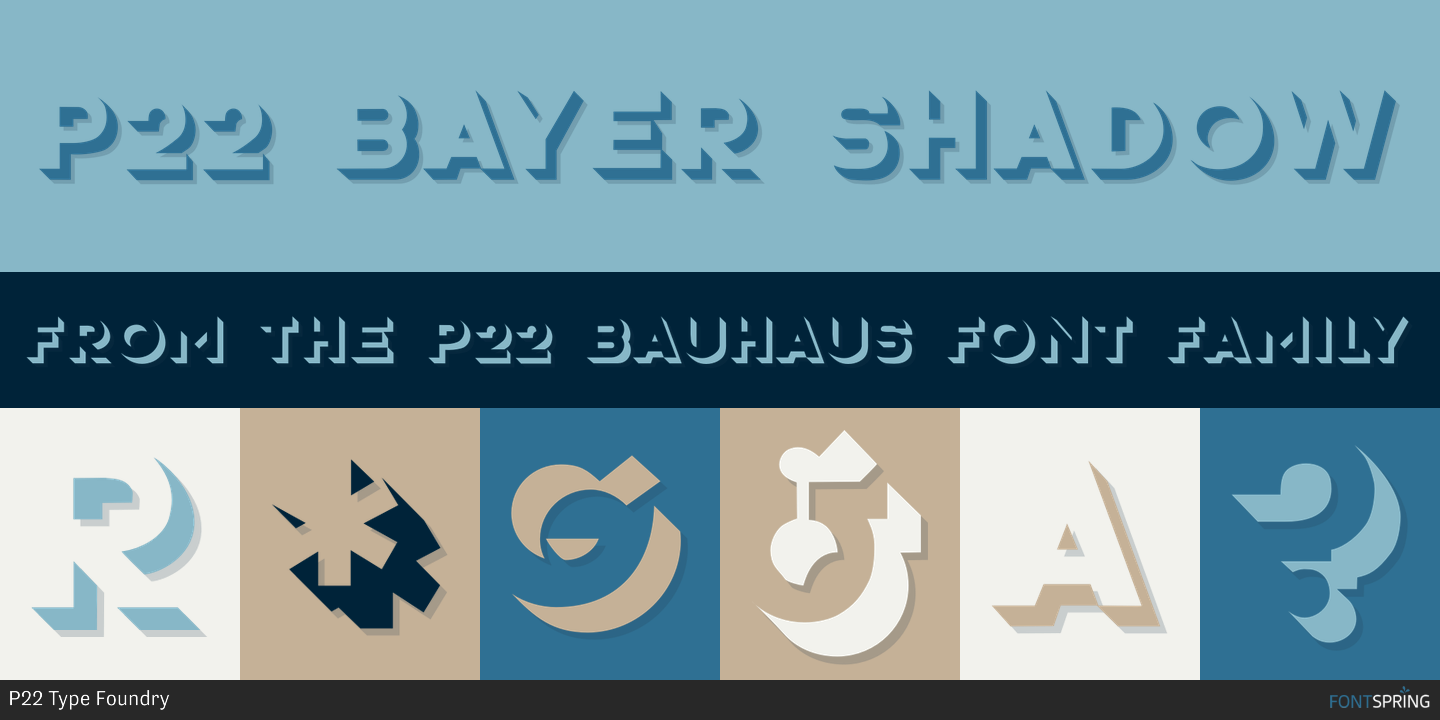
P22 BAYER SHADOW
P22 Bauhaus is a dingbat, display and retro font family. This typeface has four styles and was published by P22 Type Foundry.
Type faces designed by Herbert Bayer including the “Universal” font most commonly associated with the Bauhaus school.